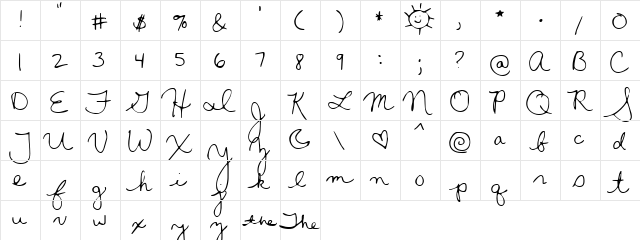
Chelsea's Handwriting Regular
Design Context for Chelsea's Handwriting Typeface
Chelsea's Handwriting brings a calligraphic fluidity to the page — its connecting strokes and expressive curves give it an unmistakably human quality.
Font Pairing: Combine Chelsea's Handwriting with a simple geometric sans for maximum contrast — the tension between flowing curves and clean structure is a classic typographic pairing.
Pro Tip: Use Chelsea's Handwriting for short runs of text — names, titles, or taglines. Extended body copy in script faces tires the eye quickly.